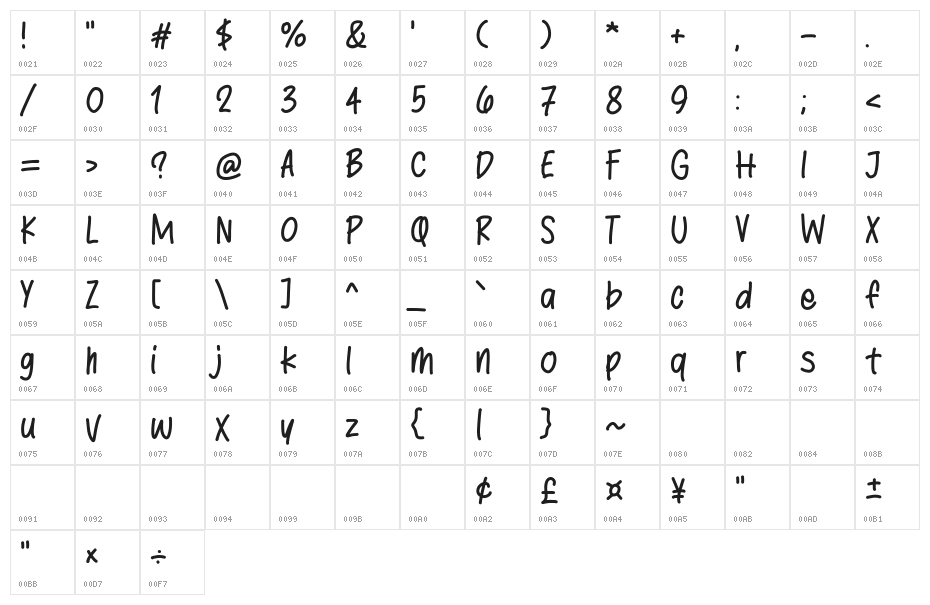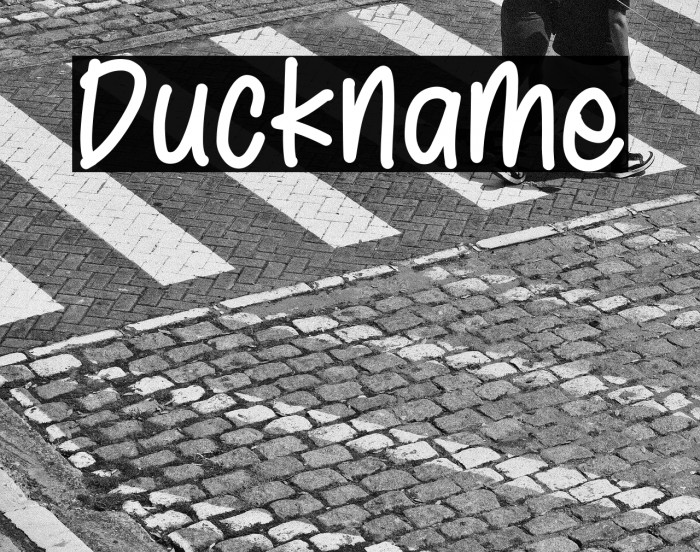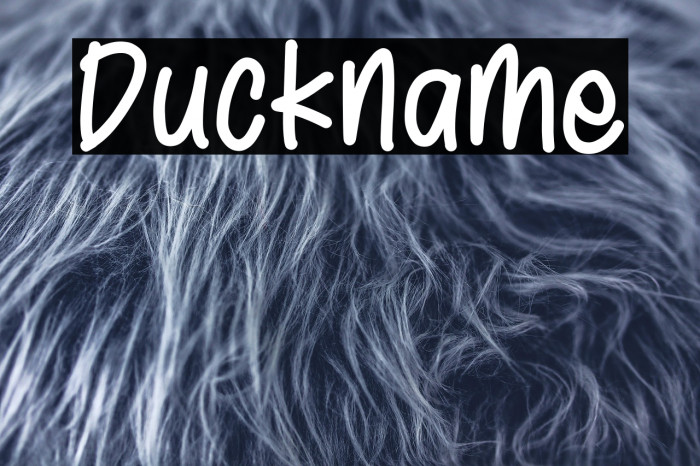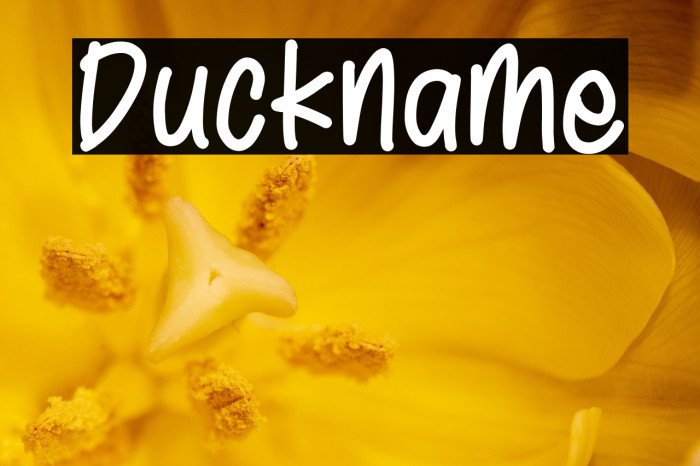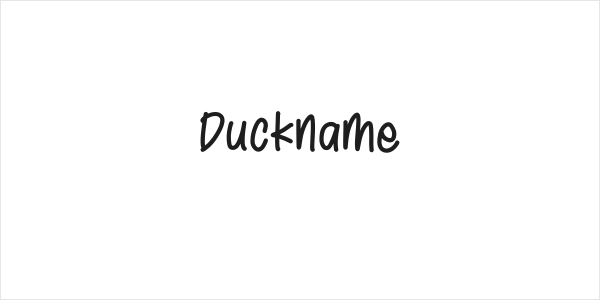
Duckname Font
Duckname Description
This font features a playful and casual handwritten style, characterized by its smooth, rounded strokes and slightly irregular letterforms. The uppercase and lowercase letters maintain a consistent flow, giving it a friendly and approachable appearance. The numerals and special characters complement the alphabet with similar curves and a relaxed feel. The overall design is informal yet legible, making it suitable for a variety of creative applications.
| Overall Style | Casual, Playful |
| Use Case | Headlines, Informal text, Creative projects |
| Proposed Projects | Ideal for greeting cards, children's books, casual branding, and social media graphics. |